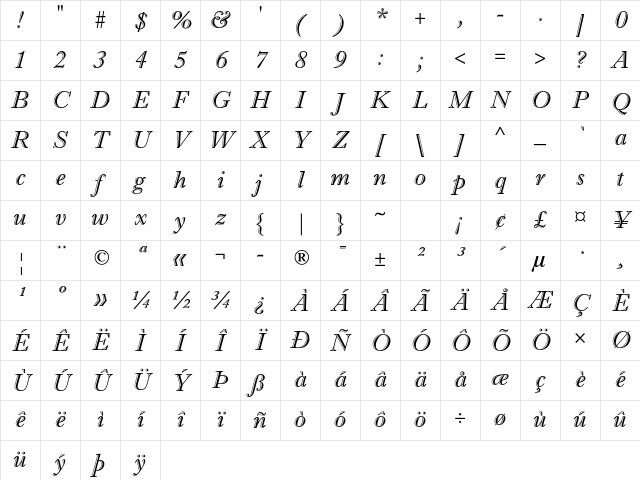
Imprint MT Std Shadow It
Style: Shadow It
Complete Imprint MT Std Shadow It glyph index. Displaying only characters natively supported by Imprint MT Std Shadow It font.
Design Context for Imprint MT Std
Imprint MT Std is built around its visual character rather than neutral utility - its distinctive forms are designed to make an impression at display sizes.
Font Pairing: Pair with a clean neutral sans-serif for body copy to let Imprint MT Std's character lead without overwhelming the composition.
Pro Tip: Use Imprint MT Std exclusively at display sizes - it was designed to be seen, not read at length. Let a neutral companion handle body copy.